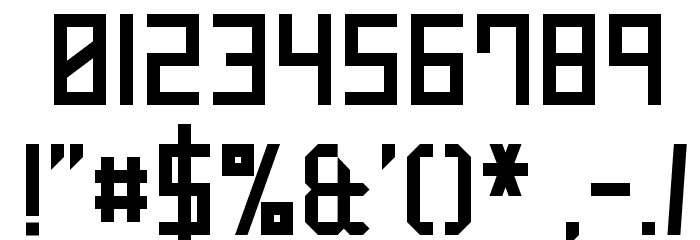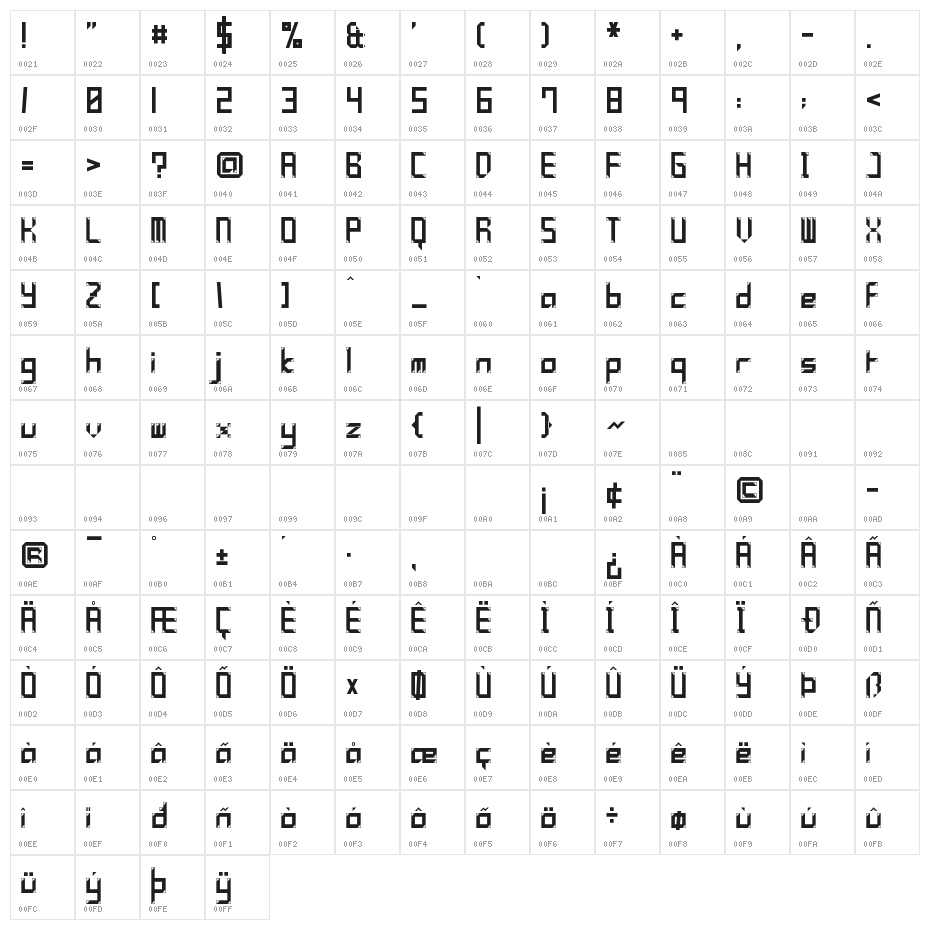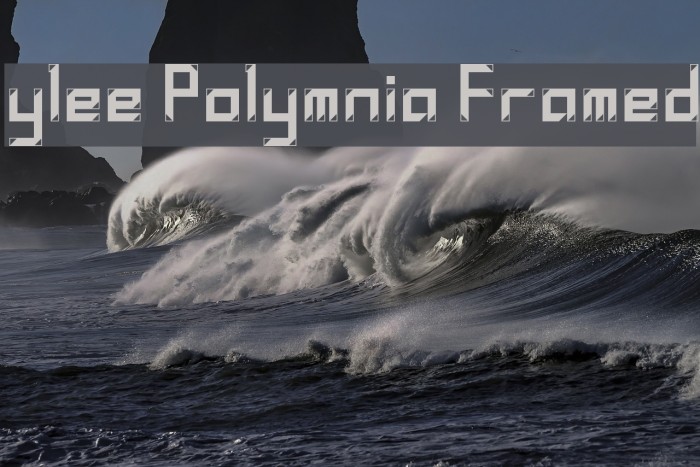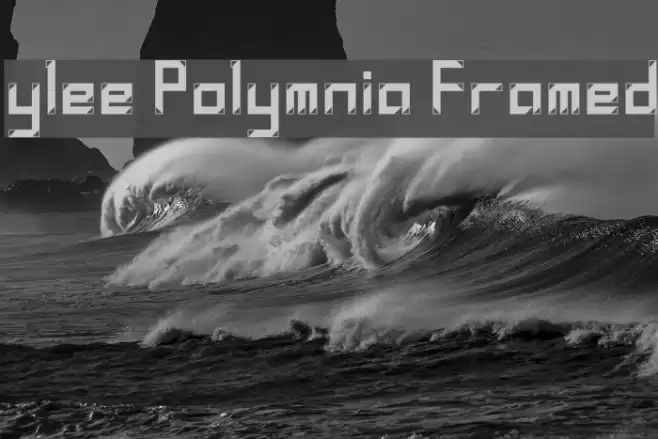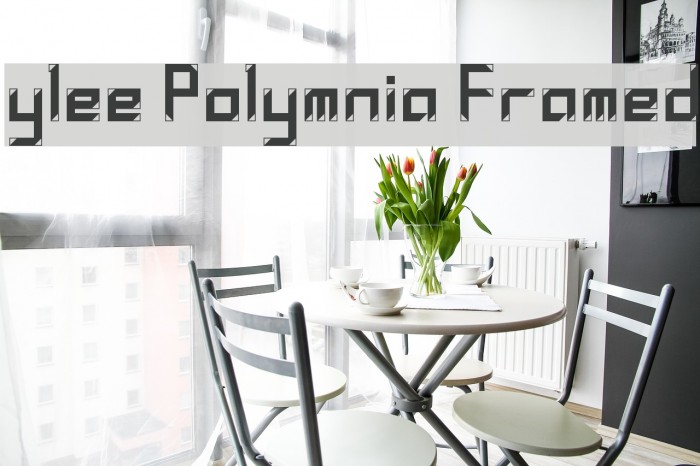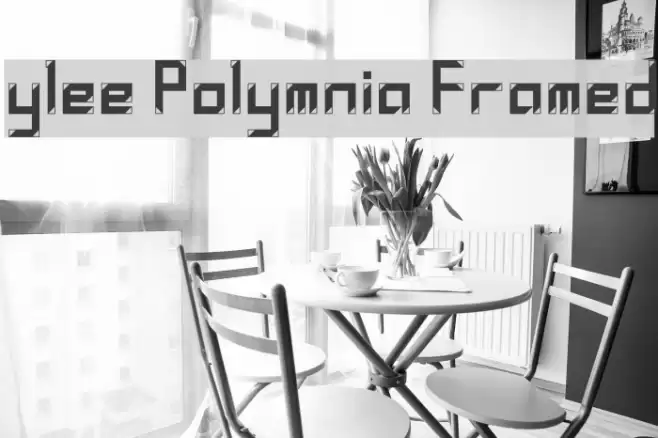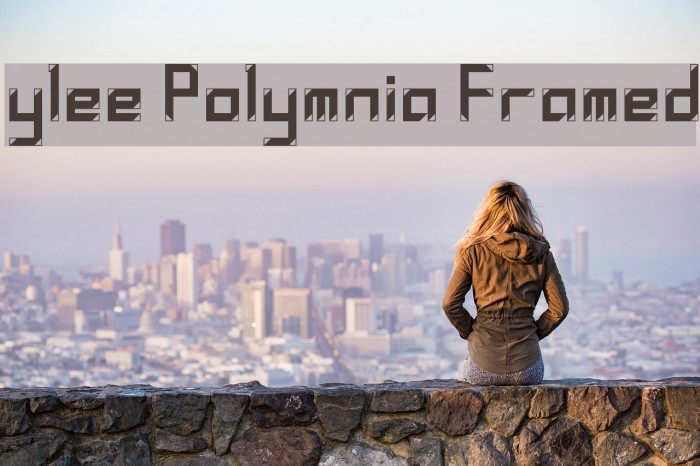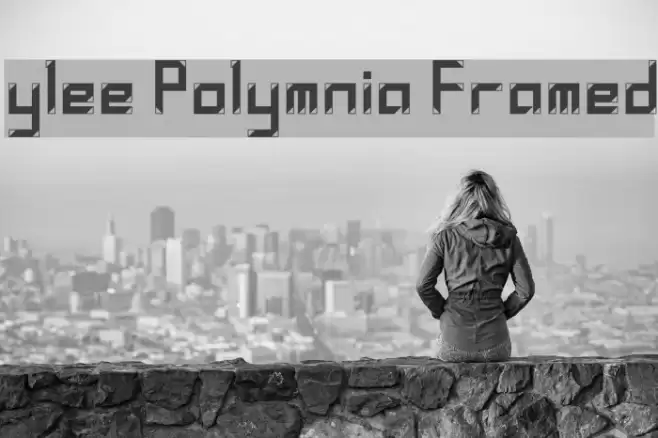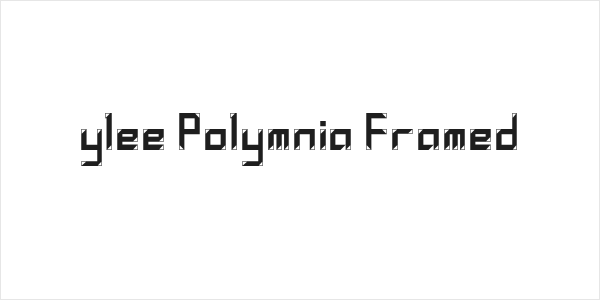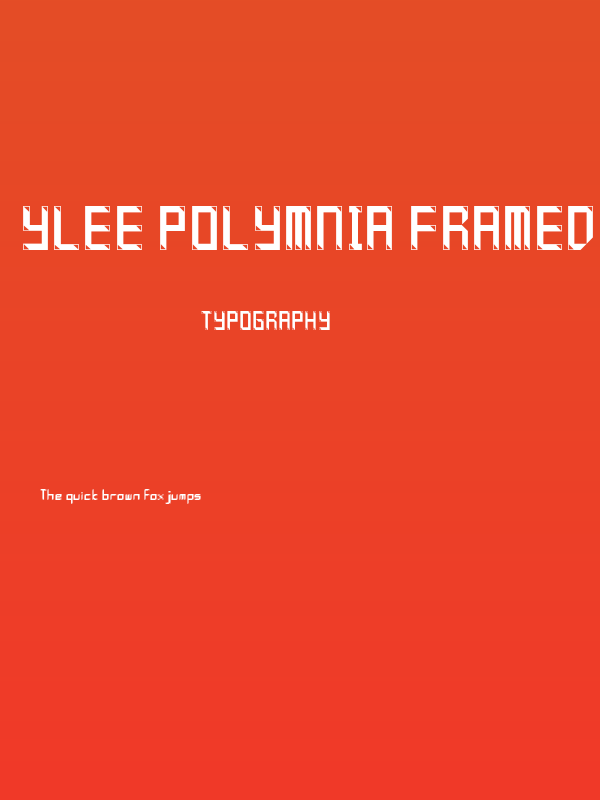
ylee Polymnia Framed Font
ylee Polymnia Framed Description
This font features a bold and geometric design with a unique, angular style. Each character is constructed with sharp edges and triangular cutouts, giving it a futuristic and edgy appearance. The uppercase and lowercase letters maintain a consistent height, creating a uniform look across the text. The numerals and special characters follow the same design principles, ensuring cohesion throughout. The font's distinct style makes it stand out, ideal for projects that require a modern and unconventional aesthetic.
| Proposed Projects | Ideal for sci-fi themed posters, modern branding, video game titles, and tech-related designs. |